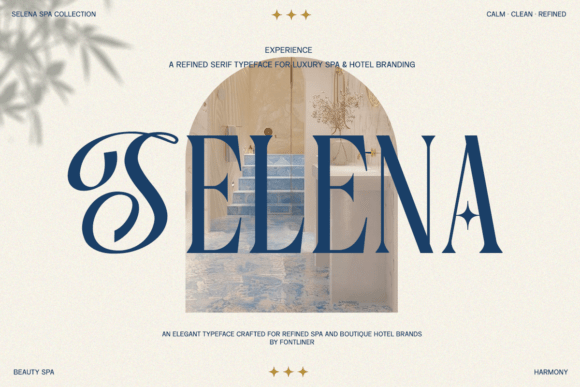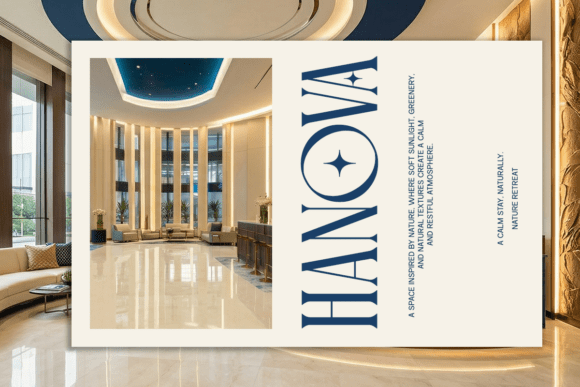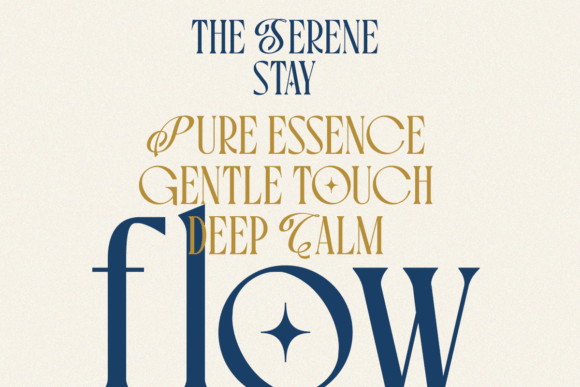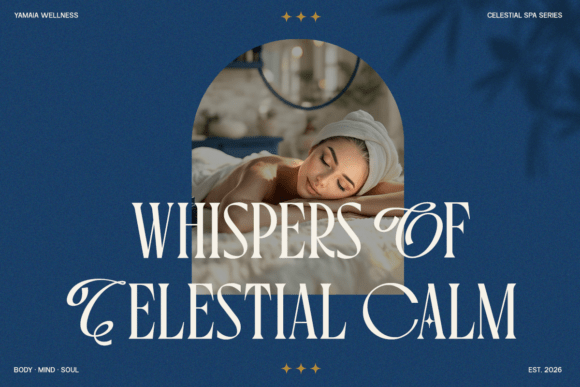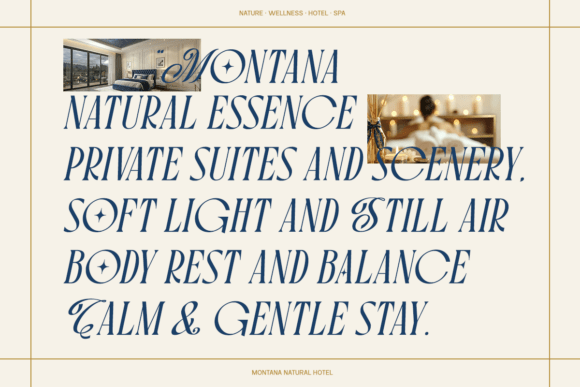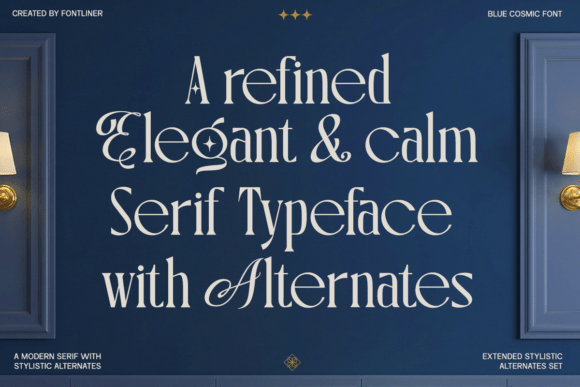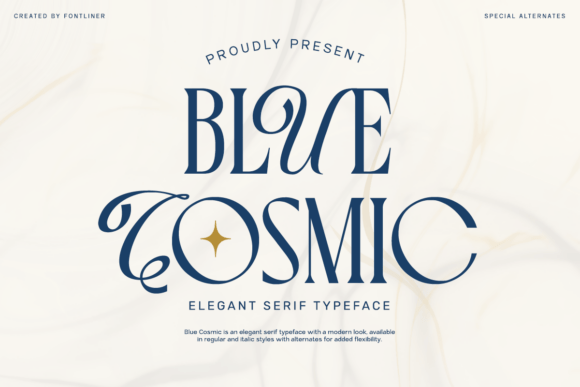
Introducing Blue Cosmic Font: Elevate Your Designs with Elegance and Sophistication
In the world of typography, a well-crafted font can make all the difference in elevating a design from ordinary to extraordinary. For designers and crafters seeking to add a touch of elegance and sophistication to their visual compositions, Blue Cosmic Font is an exceptional choice. This stunning serif typeface seamlessly blends modern refinement with subtle decorative flair, making it perfect for a wide range of applications, from branding and editorial design to fashion visuals and luxury packaging.
The Essence of Blue Cosmic Font
Blue Cosmic Font is an elegant serif typeface that exudes refinement and poise. Its design is characterized by refined curves and stylish alternates, which work in harmony to create a graceful and artistic presence. This font is meticulously crafted to bring a sense of luxury and sophistication to any design project, making it an ideal choice for designers who aim to create premium brand identities, stylish headlines, or captivating editorial content.
Key Features of Blue Cosmic Font
- Elegant Serif Design: Blue Cosmic Font boasts a classic serif design with a modern twist, making it perfect for designs that require a touch of sophistication.
- Refined Curves: The font’s curves are meticulously crafted to create a smooth, flowing aesthetic that adds a level of refinement to any design.
- Stylish Alternates: Blue Cosmic Font offers a range of stylish alternates, allowing designers to add variety and creativity to their typography.
- Modern Aesthetic: Despite its classic roots, Blue Cosmic Font has a distinctly modern feel, making it suitable for a wide range of design applications.
Applications of Blue Cosmic Font
Blue Cosmic Font is an incredibly versatile typeface that can be used in a variety of design contexts. Some of the ideal applications for this font include:
- Branding: Create a premium brand identity with Blue Cosmic Font, which conveys elegance, sophistication, and refinement.
- Editorial Design: Use Blue Cosmic Font to add a touch of luxury to your editorial content, such as magazines, newspapers, and books.
- Fashion Visuals: Elevate your fashion designs with Blue Cosmic Font, which is perfect for creating stylish headlines, captions, and body copy.
- Luxury Packaging: Add a level of sophistication to your luxury packaging designs with Blue Cosmic Font, which exudes refinement and elegance.
Why Choose Blue Cosmic Font?
With so many fonts available, why choose Blue Cosmic Font? Here are just a few reasons why this typeface stands out:
- Unique Aesthetic: Blue Cosmic Font offers a distinctive aesthetic that sets it apart from other serif typefaces.
- High Versatility: This font can be used in a wide range of design applications, from branding to editorial design.
- Elegant and Sophisticated: Blue Cosmic Font is the perfect choice for designers who want to add a touch of elegance and sophistication to their designs.
Blue Cosmic Font is an exceptional typeface that offers a perfect blend of modern sophistication and subtle decorative flair. With its refined curves, stylish alternates, and elegant serif design, this font is ideal for designers and crafters seeking to elevate their visual compositions. Whether you’re creating a premium brand identity, stylish headline, or luxury packaging design, Blue Cosmic Font is the perfect choice. Discover the power of Blue Cosmic Font and take your designs to the next level.